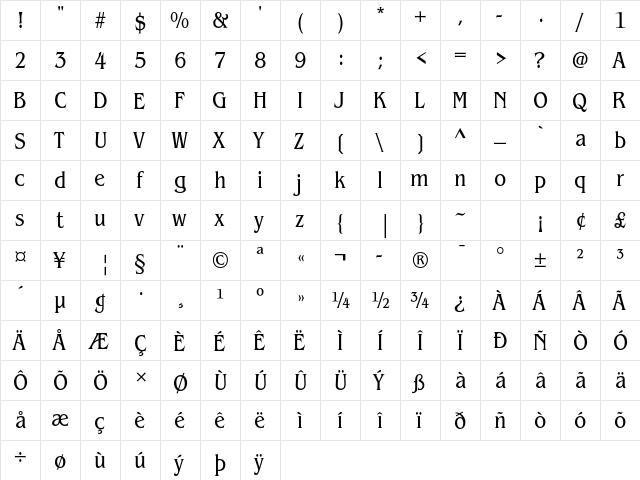
ITC Benguiat Std Book Condensed
| Designer | Edward Benguiat |
Design Context for ITC Benguiat Std Typeface
ITC Benguiat Std offers clean, dependable letterforms without strong stylistic allegiance, making it a practical choice for designers who need flexibility. Its narrow stance lets it pack a punch even in space-constrained designs.